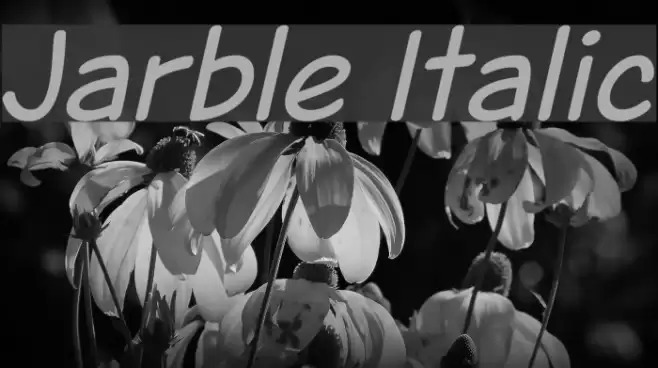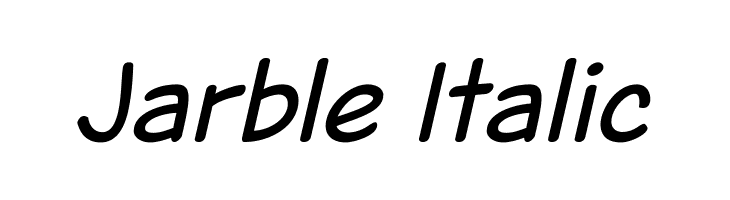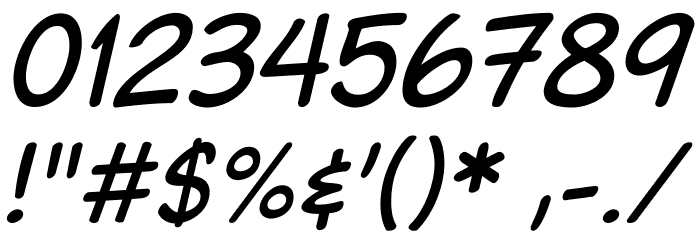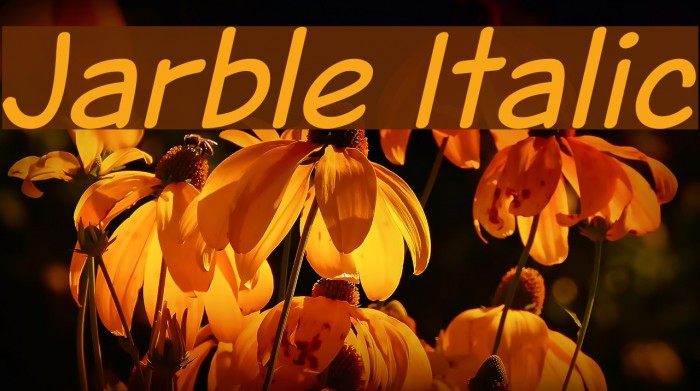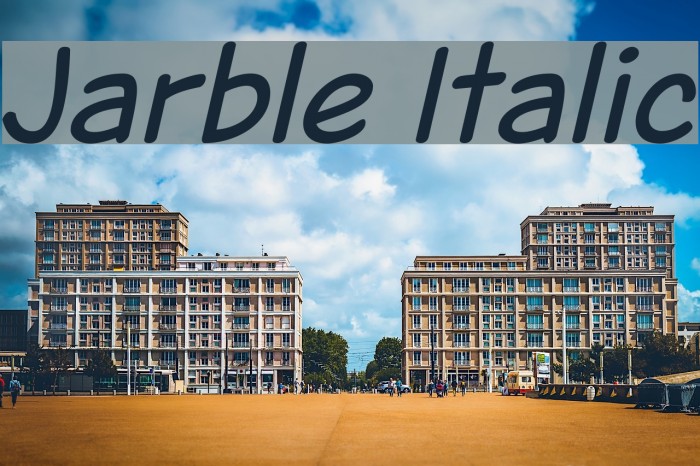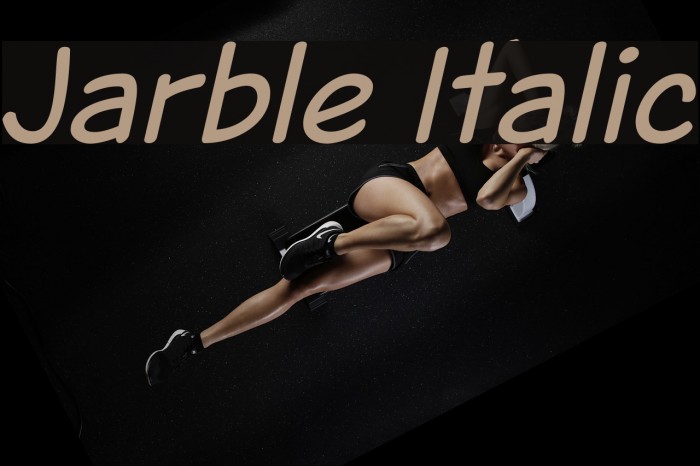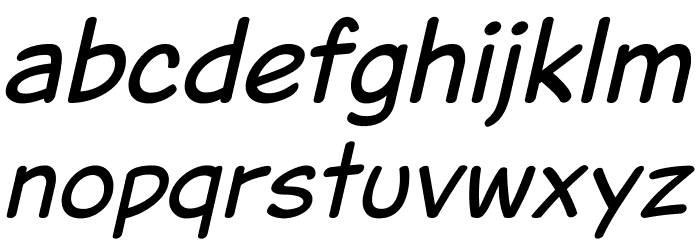
Jarble Italic
This font features a playful and dynamic italic style, characterized by its smooth, flowing curves and slightly slanted letters. The strokes are consistent in width, giving it a uniform appearance that enhances readability. The uppercase letters are bold and prominent, while the lowercase letters maintain a friendly and approachable look. The numerals are clear and well-defined, making them suitable for various applications. Special characters are included, adding versatility to the font's use. Overall, the font exudes a casual yet professional vibe, making it suitable for both formal and informal contexts.
A playful, italic font with smooth curves and consistent stroke width.